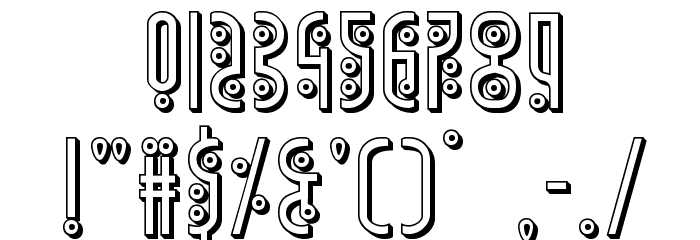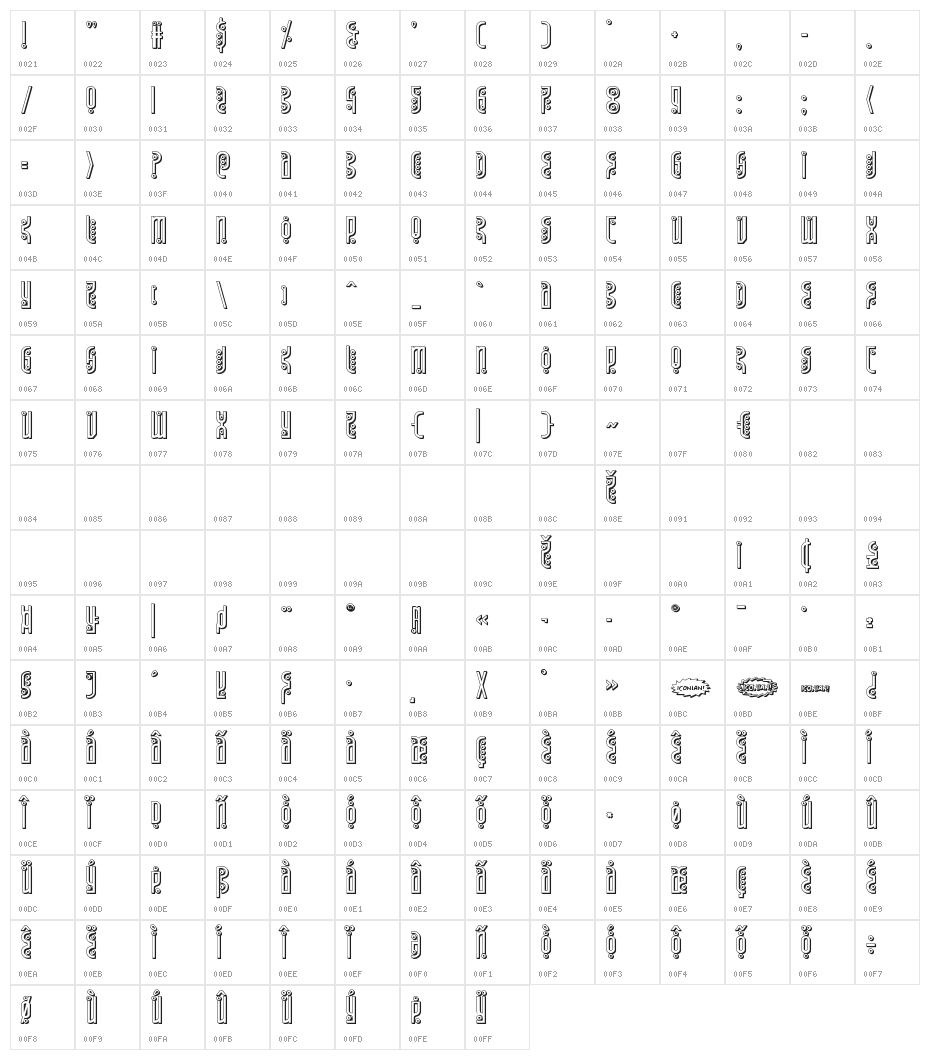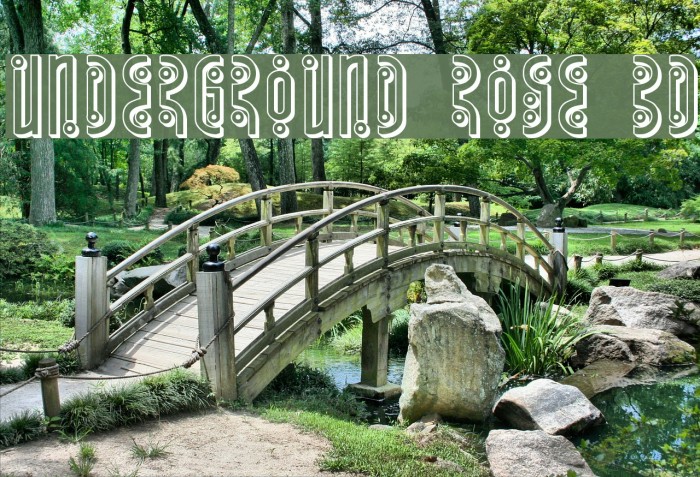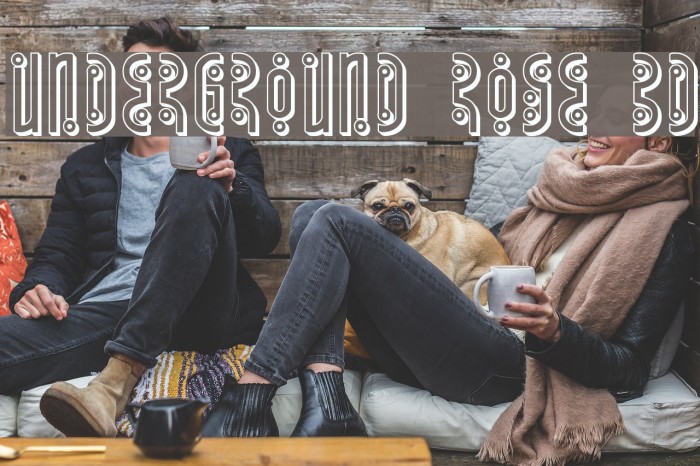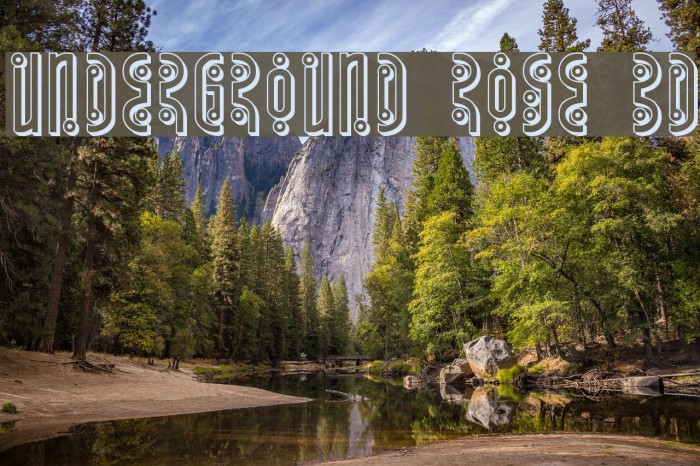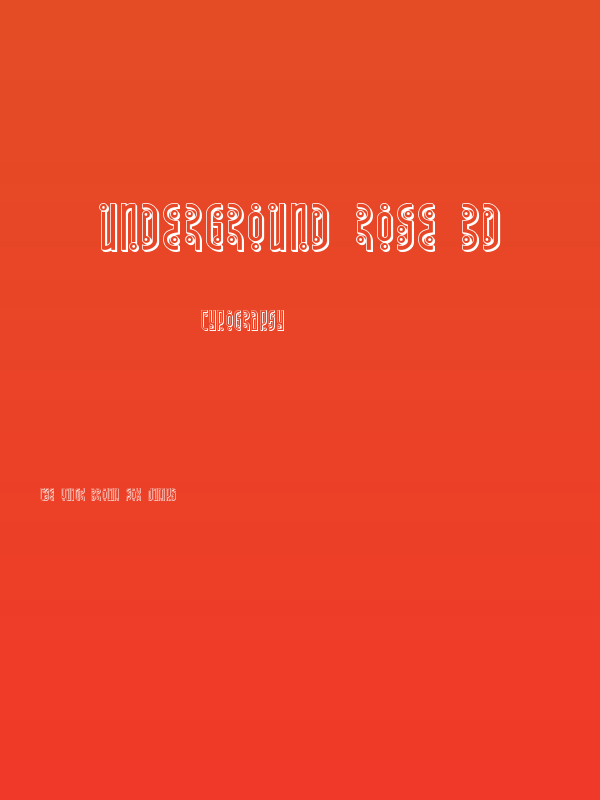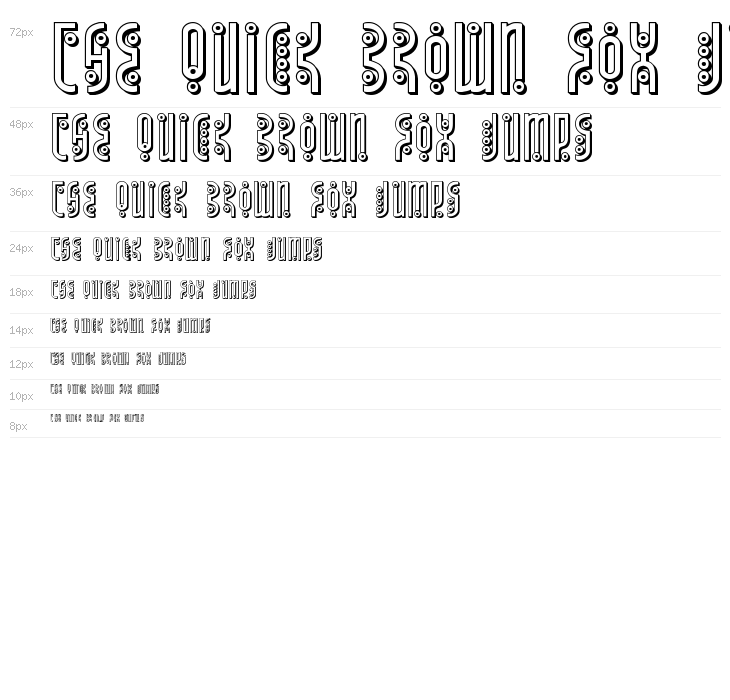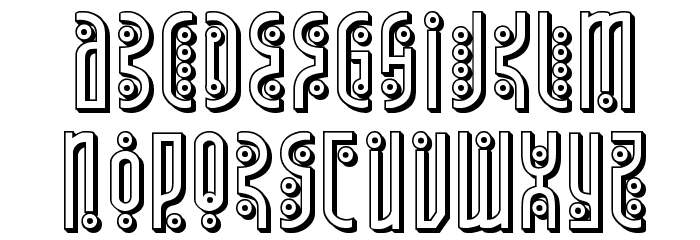
Underground Rose 3D Font
Underground Rose 3D Description
This font features a bold, decorative style with a 3D effect that gives it a striking and modern appearance. The characters are uniquely designed with circular cutouts and geometric patterns, creating a sense of depth and movement. The uppercase and lowercase letters maintain a consistent design theme, while the numbers and special characters complement the overall aesthetic. The font's intricate details and bold outlines make it highly suitable for eye-catching designs.
| Proposed Projects | Ideal for posters, album covers, branding, and any project requiring a bold, modern aesthetic. |